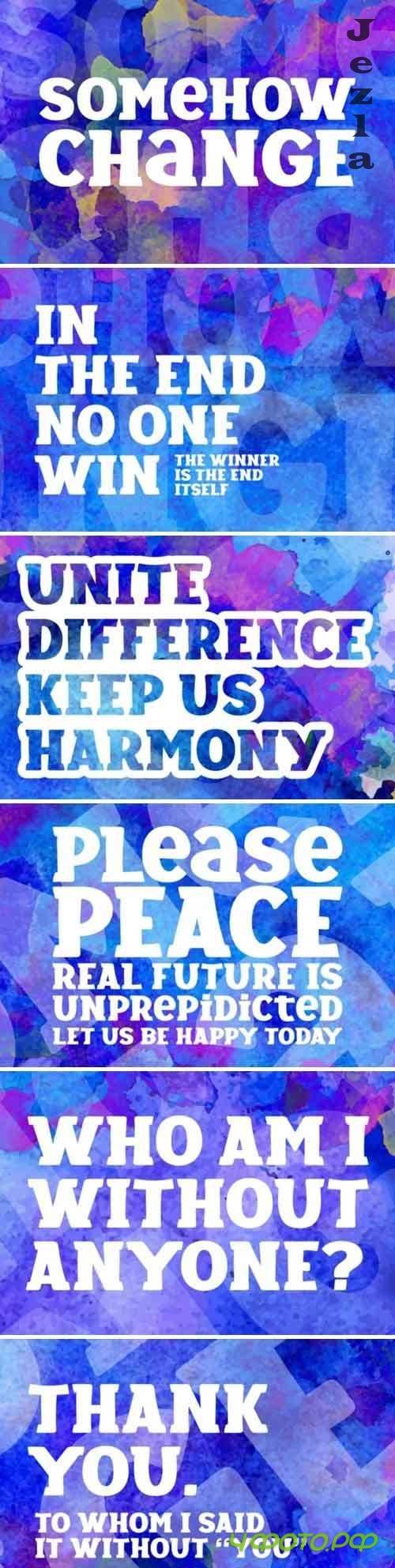
Somehow Change Font
Somehow Change is a strong handwritten font. This fantastic font is best suited for headlines of all sizes, as well as for blocks of text that have both maximum and minimum variations. Whether it’s for web, print, moving images or anything else – Somehow Change will look spectacular.